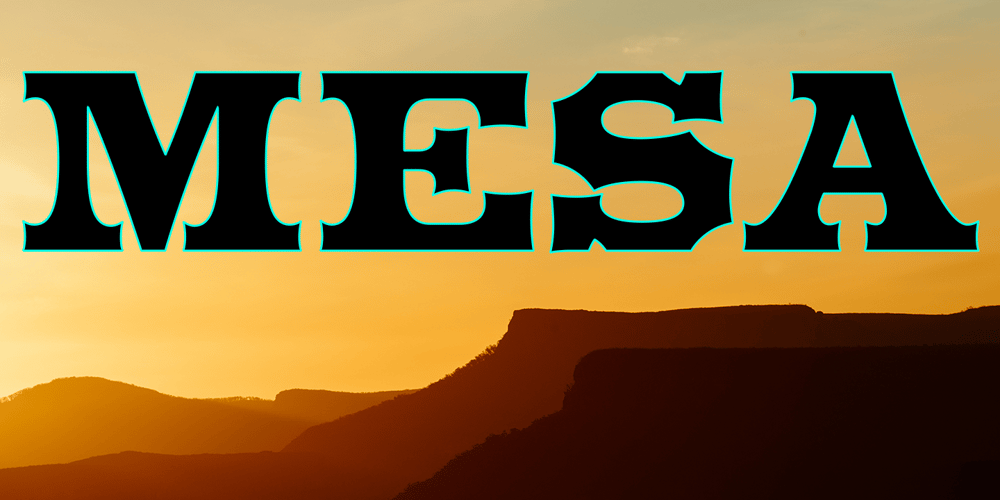
Mesa Font Family was designed by Michael Hagemann and published by FontMesa. Mesa contains 8 styles and family package options. Mesa is a revival of an old pointed Tuscan font from the MacKellar Smiths and Jordan type foundry called Broad Gauge circa 1874.This new version offers a few alternates including half slab and full slab uppercase A’s.Opentype case sensitive forms are also included in the Mesa font family.We started production on this font in 2009 but set it aside to work on other projects, we’re pleased to have finally finished it.If you’re a Grillmaster or Pitmaster you’re going to love this font for your new business logo t-shirts and other merch.To all you Grillmaster’s and Pitmaster’s out there, Keep On Smokin’